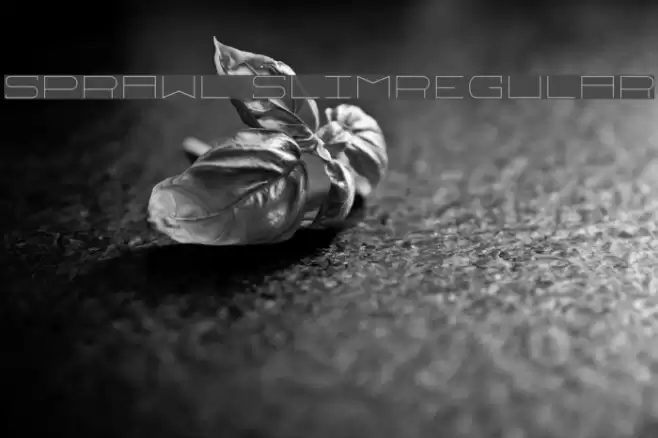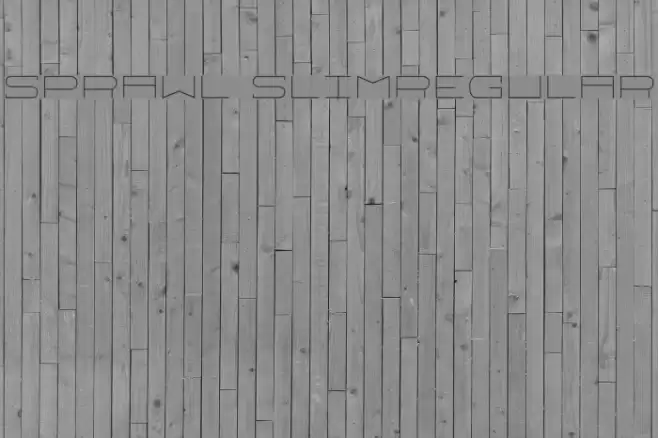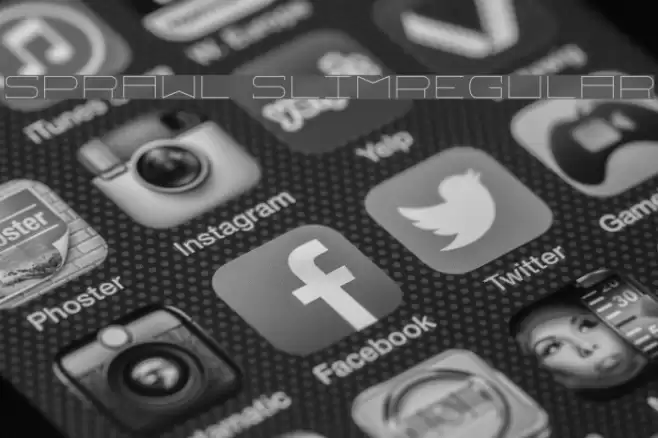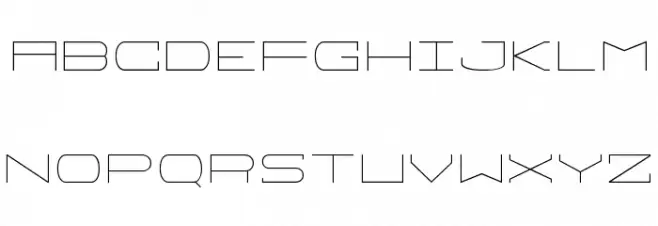
Sprawl SlimRegular Font
Sprawl SlimRegular Description
This font features a sleek, geometric design with a modern aesthetic. The characters are constructed with thin, uniform lines that create a sense of precision and clarity. Each letter maintains a consistent height and width, contributing to a balanced and harmonious appearance. The font's minimalistic style is accentuated by its open counters and straight edges, giving it a futuristic and technical feel. The uppercase and lowercase letters are designed with similar proportions, ensuring readability and visual coherence. The numerals and special characters follow the same design principles, making them seamlessly integrate with the alphabet. This font's clean and structured look makes it suitable for a variety of applications where a contemporary and sophisticated style is desired.
A sleek, geometric font with thin lines and a modern, technical aesthetic from Uncategorized fonts.
- Proposed Projects: Ideal for tech branding, modern websites, digital interfaces, and minimalist design projects.
- Weight: Light
- Use Case: Headlines, Logos, Digital interfaces